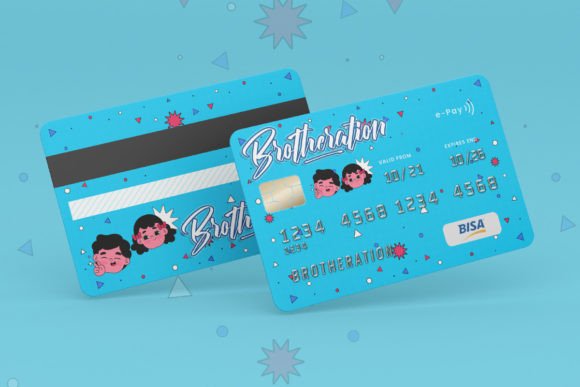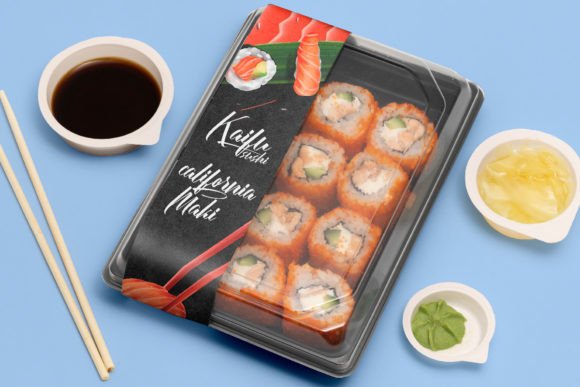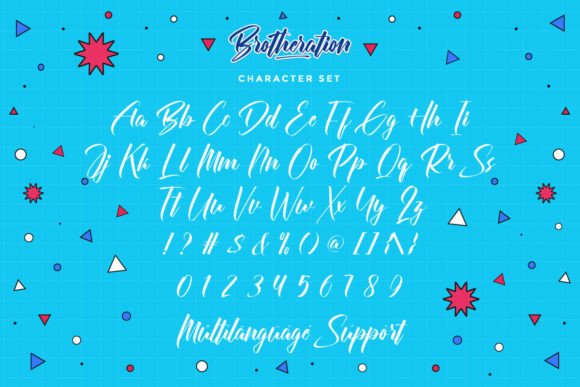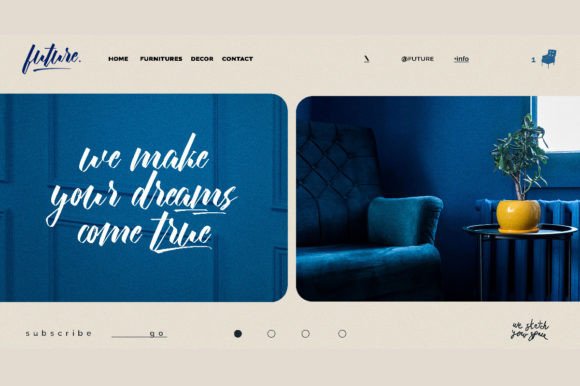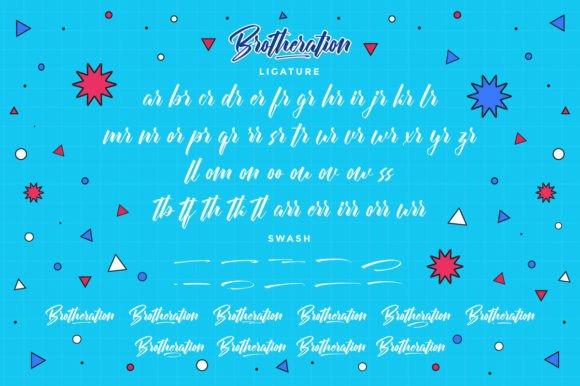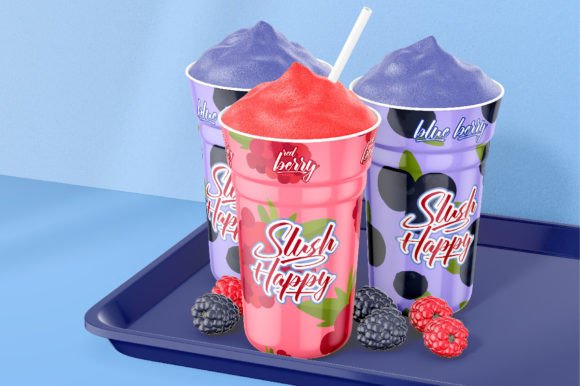
The Brotheration Font: A Modern Script Font to Elevate Your Designs
Have you ever been in the middle of a design project, and suddenly, you’re stuck on finding the perfect font? I recall a recent experience where I was working on a client’s branding project, and I just couldn’t find a font that captured the essence of their business. That’s when I stumbled upon the Brotheration font, a modern script font with a calligraphy style that instantly caught my attention.
As a designer, I was blown away by its unique yet elegant appearance, which seemed to scream creativity and fun. The Brotheration font is a game-changer, and in this article, I’ll share with you why I love it, its features, and how to make the most of it in your designs.
An Honest Review of Brotheration Font
What I Love About Brotheration Font ✨
- ✅ Easy to Read: Despite its calligraphy style, Brotheration font is surprisingly easy to read, making it perfect for body text and headings.
- ✅ Versatile: Its attractive appearance makes it suitable for various industries, such as advertisement, café, event or festival, fashion, finance/payment, game, homeware, printing, publishing, restaurant, school stuff, toy, and more!
- ✅ Modern and Fresh: Brotheration font has a modern and fresh feel to it, which will instantly elevate your designs and give them a professional touch.
- ✅ OpenType Features: The font comes with OpenType features, including glyphs and stylistic alternates, which allow for endless creative possibilities.
While Brotheration font is an excellent choice for many design projects, there are a few minor quirks to be aware of:
- 🤔 Limited Use in Serif-Heavy Designs: Brotheration font is a script font, and as such, it might not be the best choice for designs that already feature a lot of serif text.
- 🤔 Requires Attention to Kerning: As with any script font, kerning can be a bit tricky, and some manual adjustments might be necessary to achieve optimal results.
The Backstory of Brotheration Font
Brotheration font was designed with the intention of creating a modern script font that captures the essence of calligraphy. The designer aimed to create a font that is both elegant and fun, making it perfect for a wide range of design projects. While the actual design process and inspiration might be shrouded in mystery, one thing is clear: Brotheration font has become a valuable asset for designers and crafters alike.
Q: What makes Brotheration font unique?
A: Brotheration font stands out due to its modern calligraphy style, making it both elegant and easy to read.
Q: Is Brotheration font suitable for body text?
A: While Brotheration font is primarily designed for headings, its readability makes it a viable option for body text in certain design contexts.